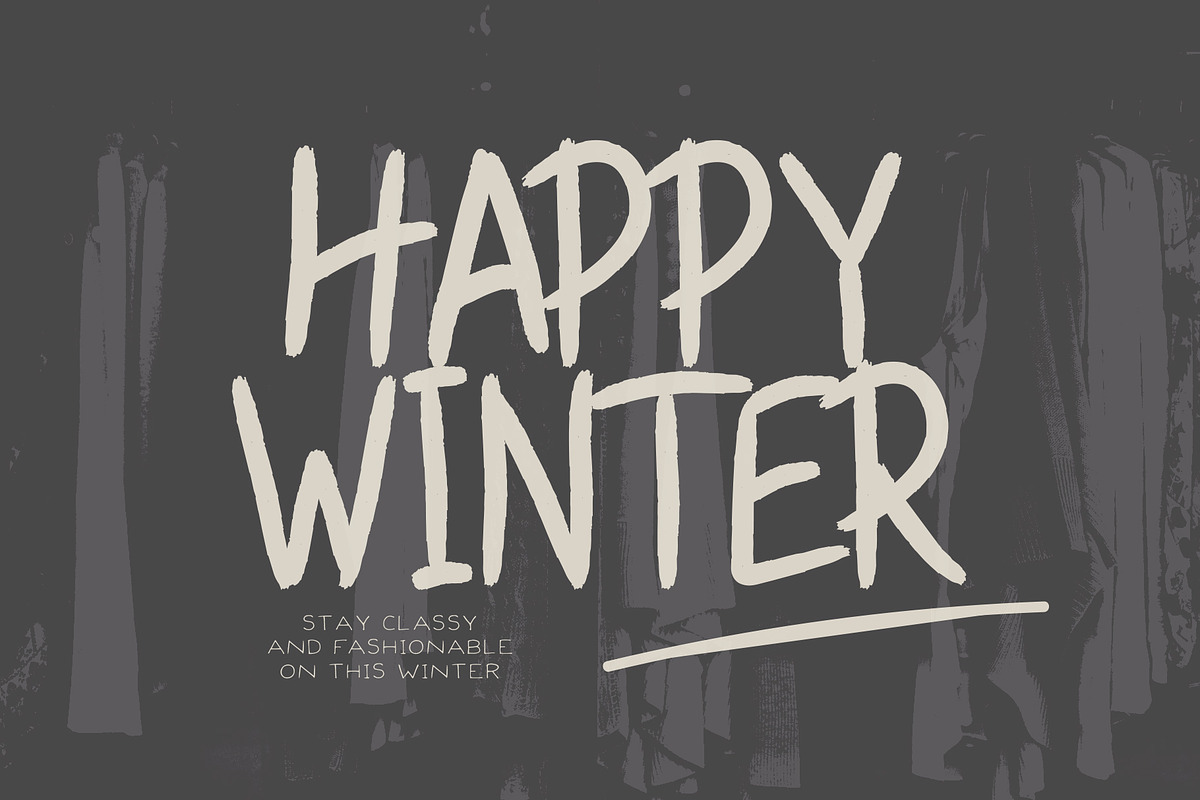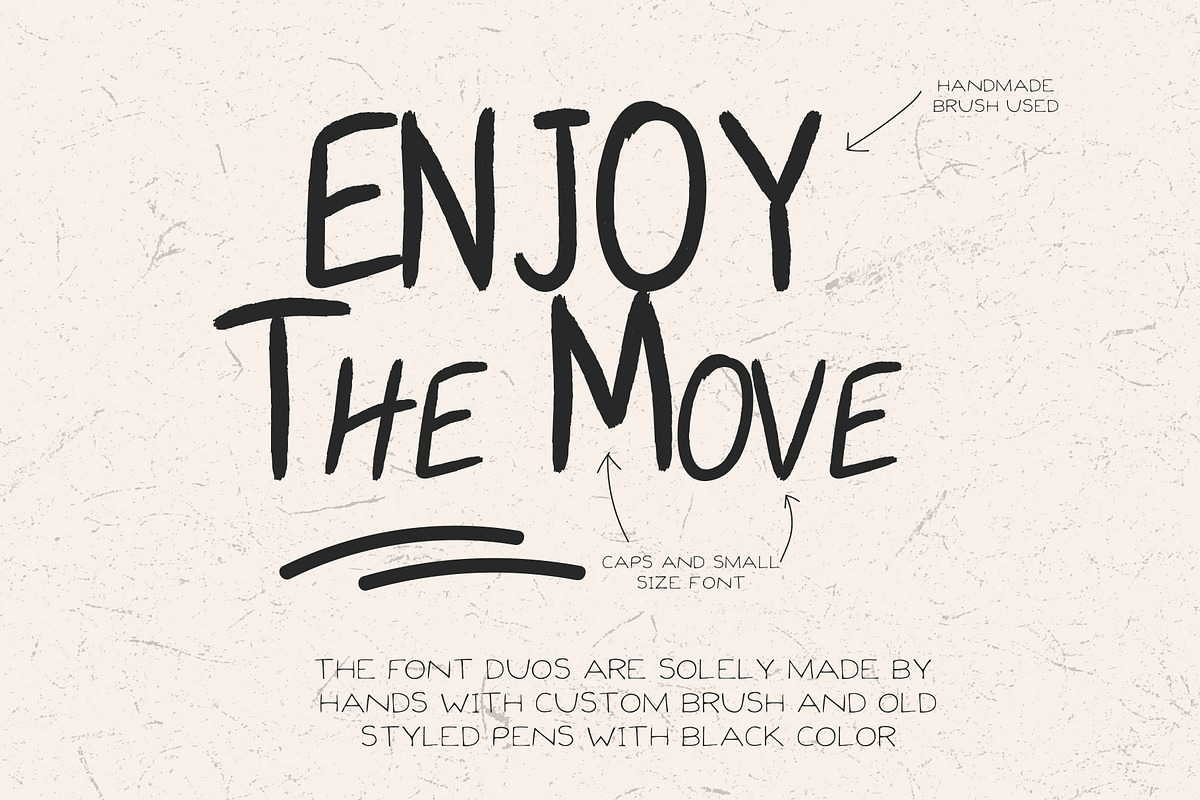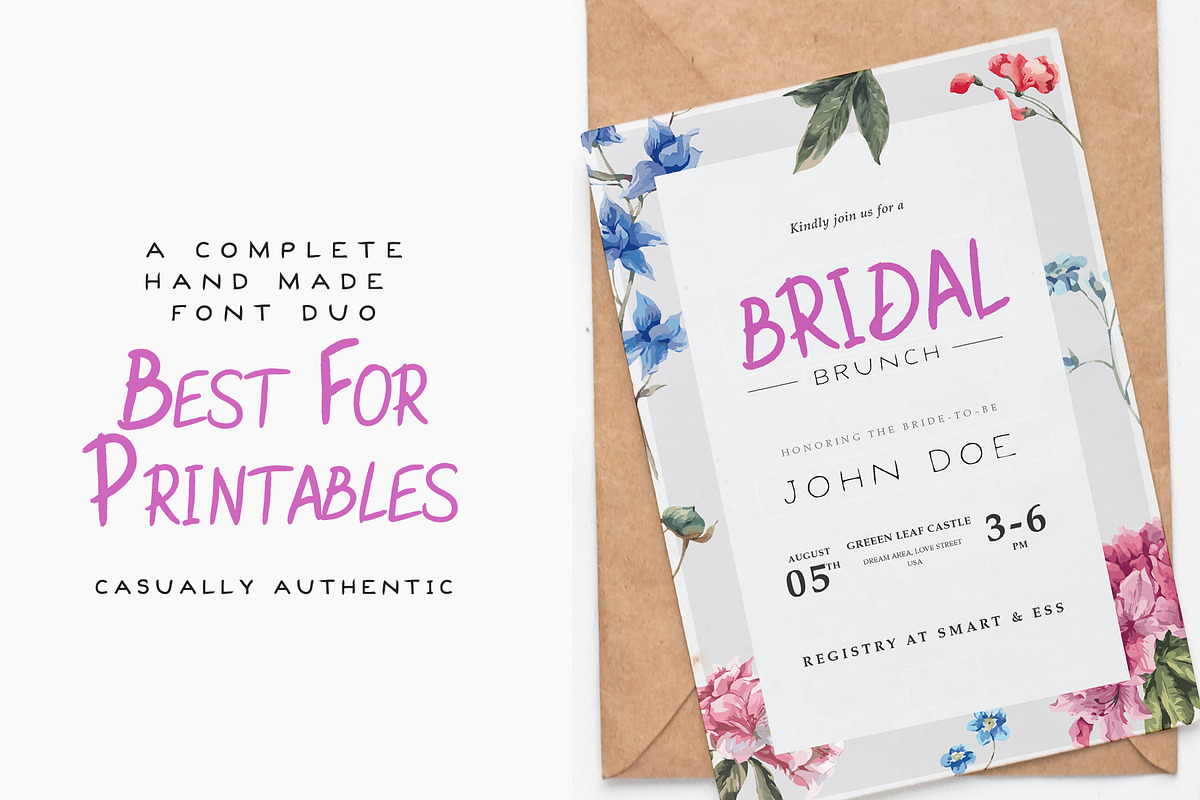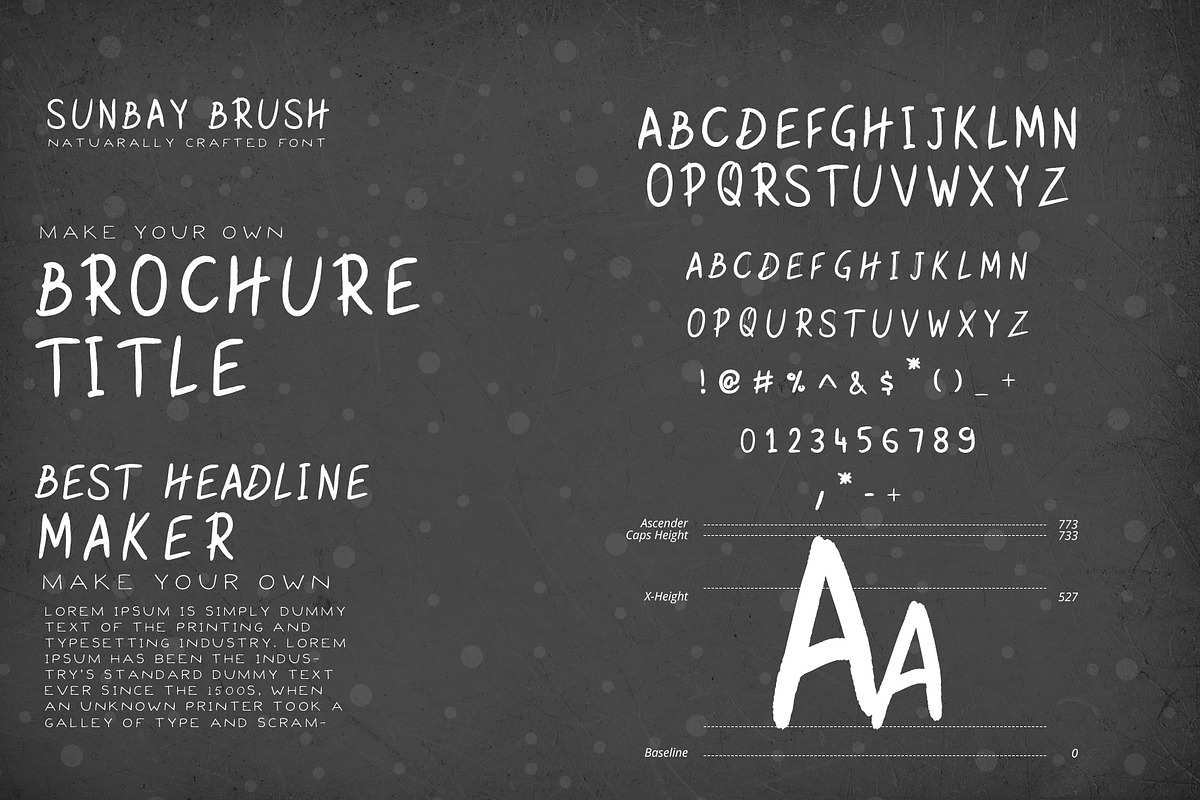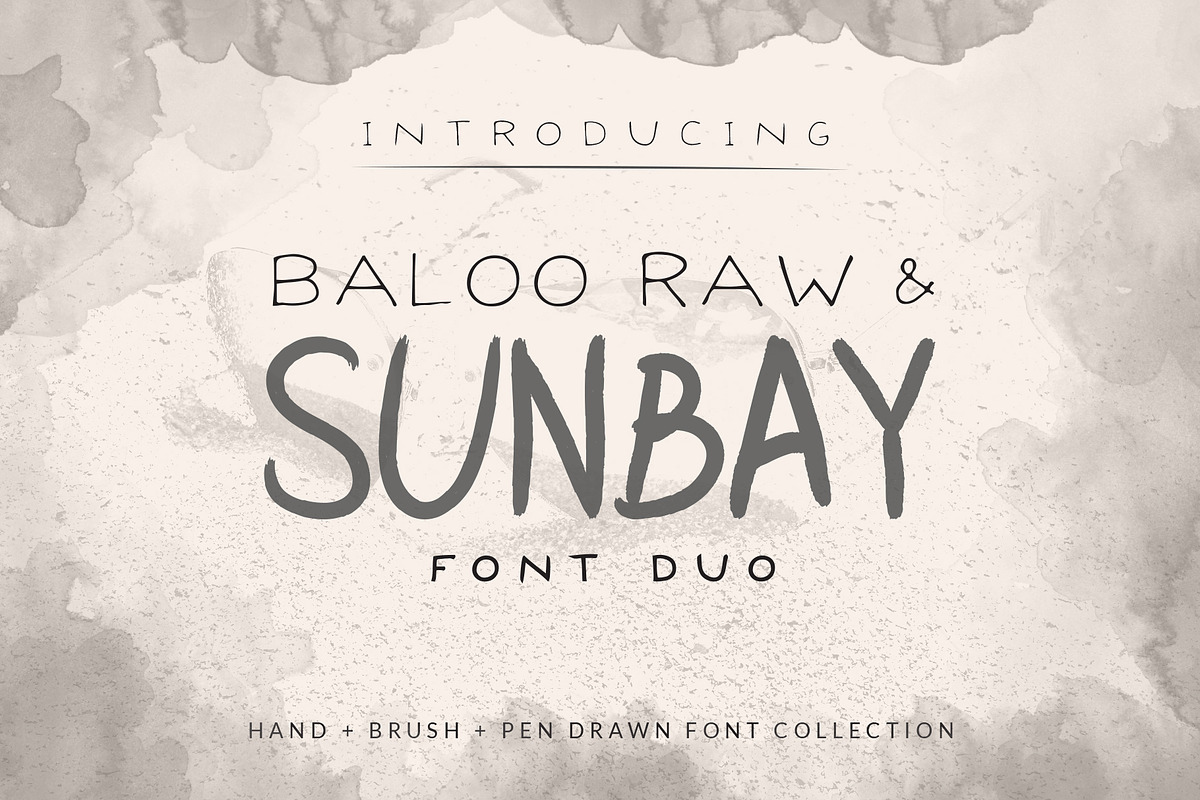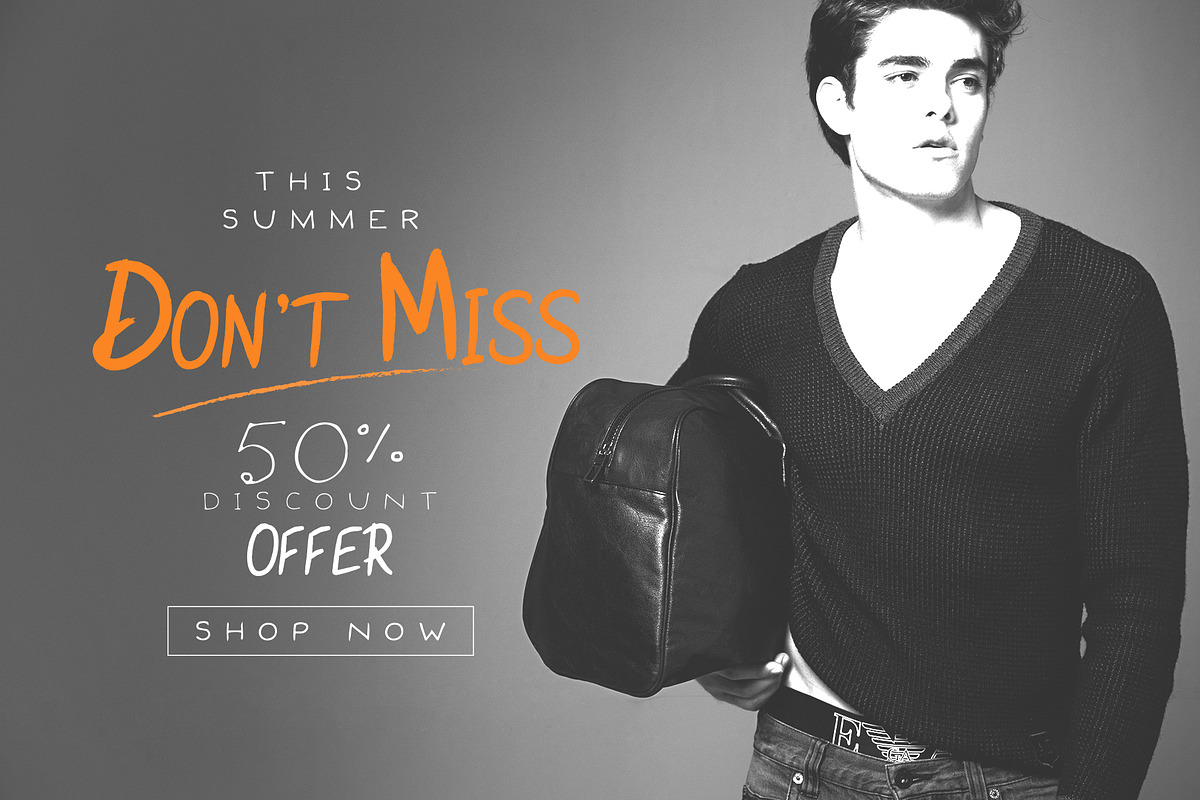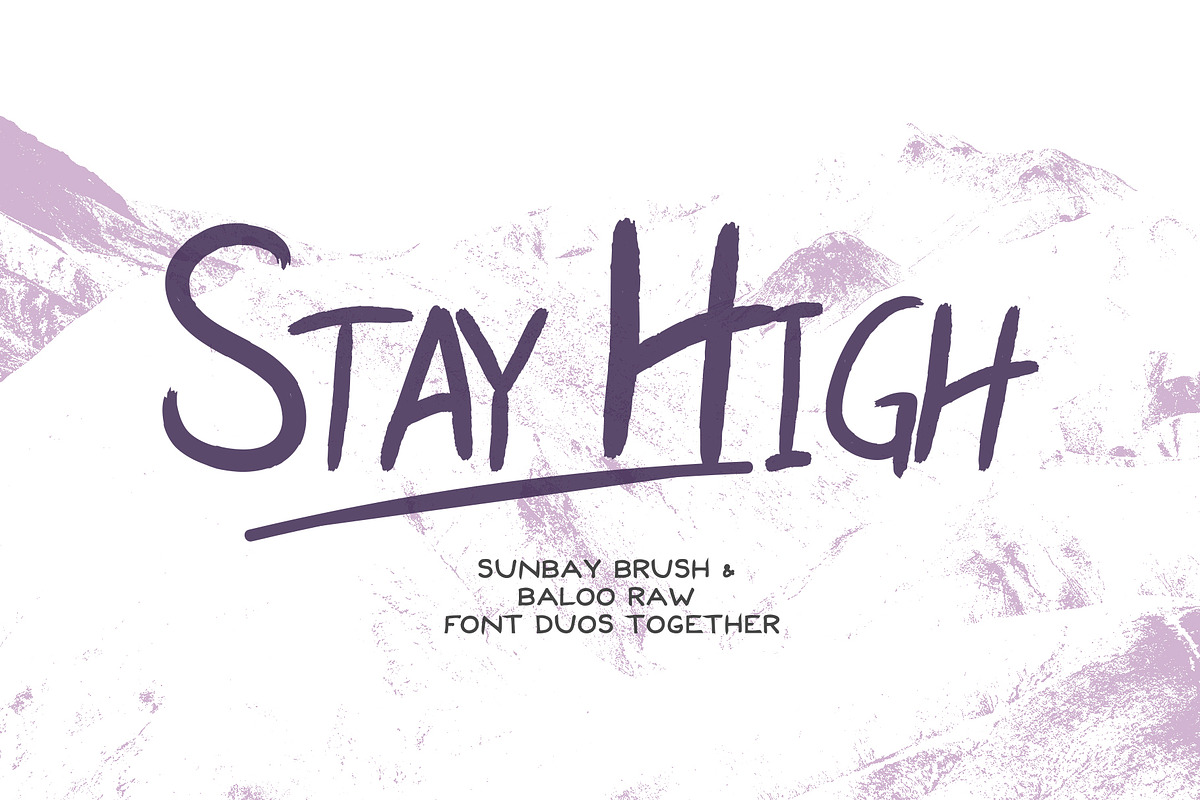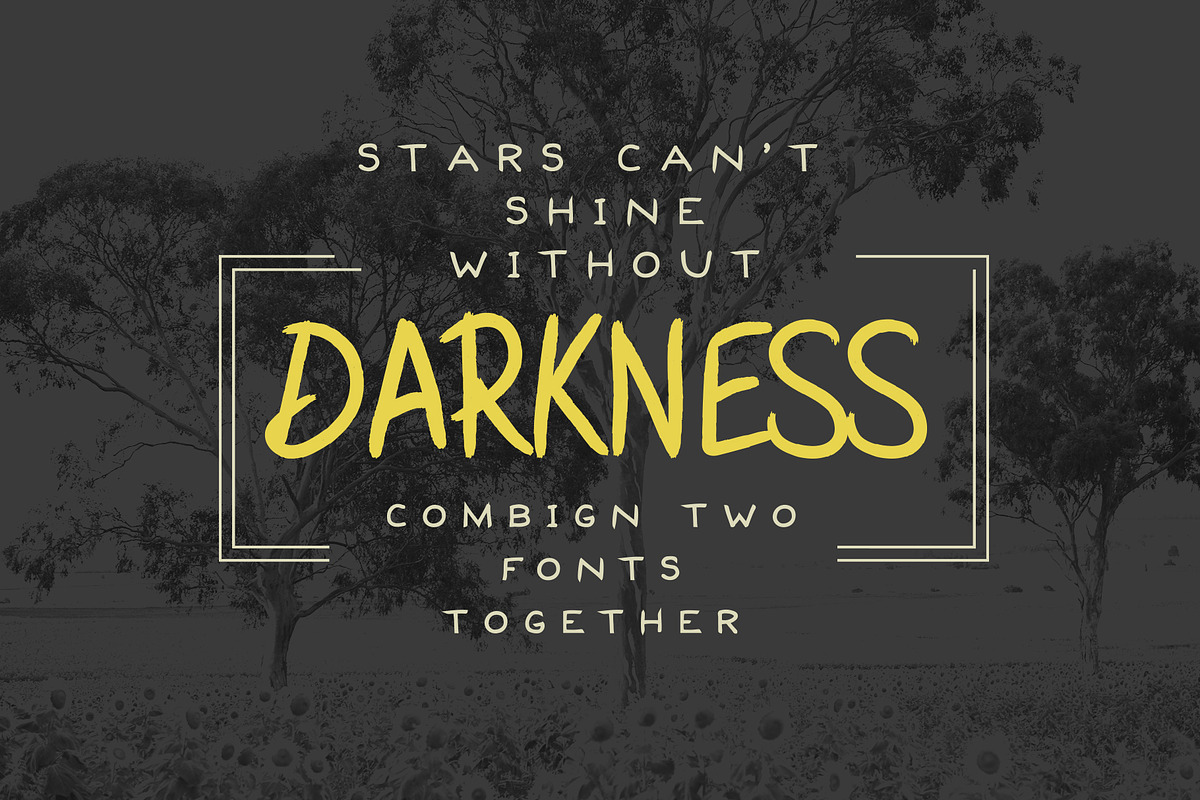
Sunbay Brsuh + Baloo Font Collection
Explore these Sunbay Brush and Baloo Raw two contemporary paintbrush made and pen drawn font collection together. Time-saving handwriting font Baloo Raw with paintbrush made font Sunbay will make your creative workflow spontaneously with no time-wasting Both the fonts are made with a hand sketch.
1. Sunbay Brush Made Font
1. Baloo Raw Pen drawn Font.